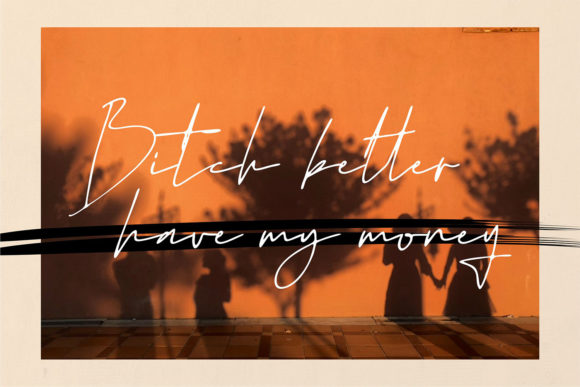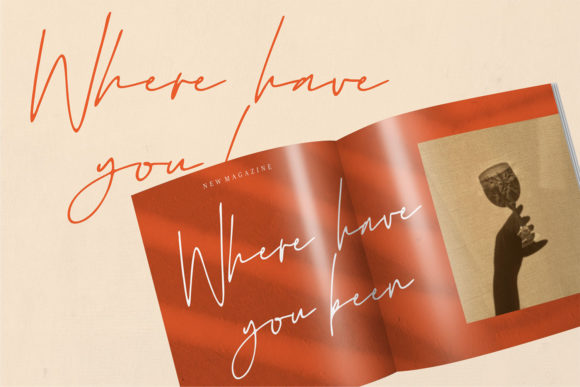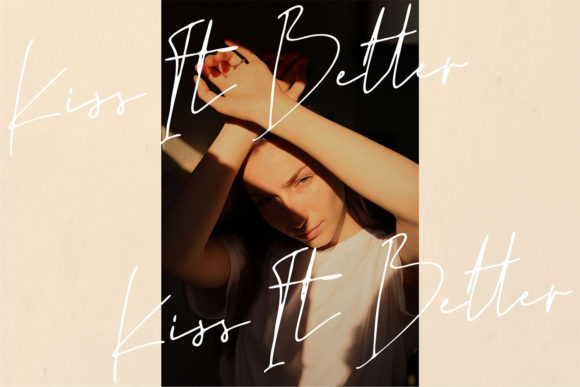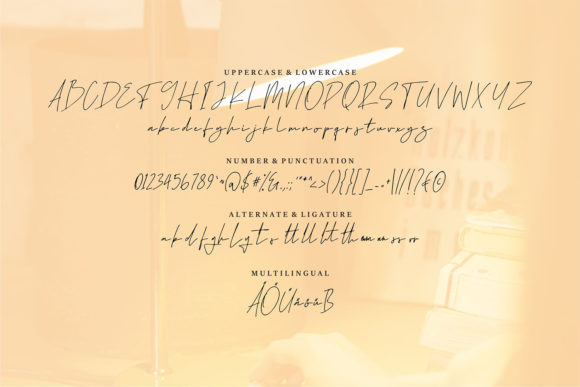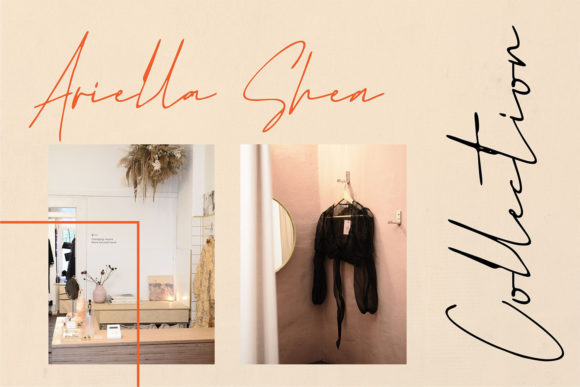
Shirley Font
About Shirley Font
Shirley is a stylish and incredibly elegant script font. It looks stunning on wedding invitations, thank you cards, quotes, greeting cards, logos, business cards and every other design which needs a customized touch.